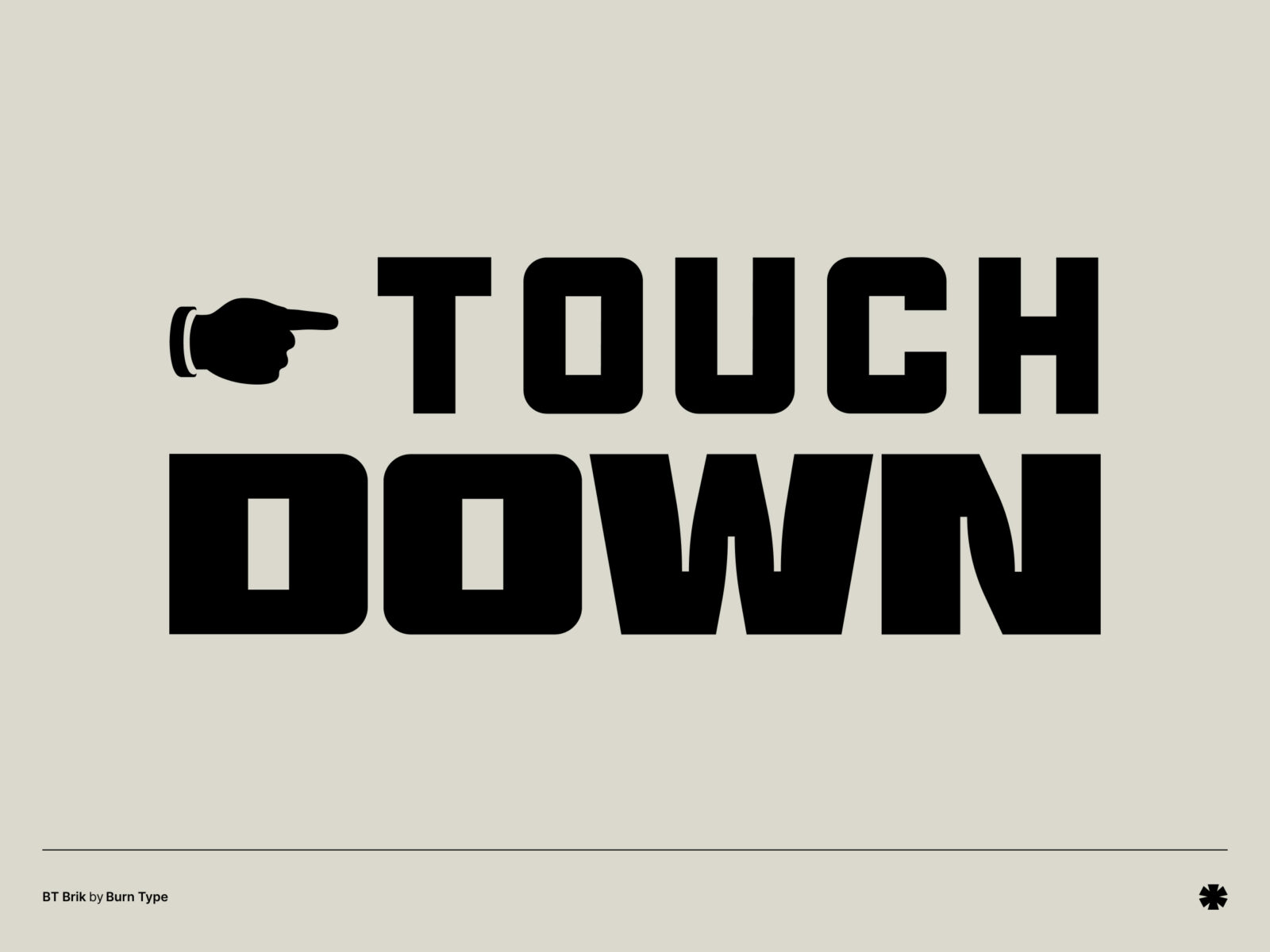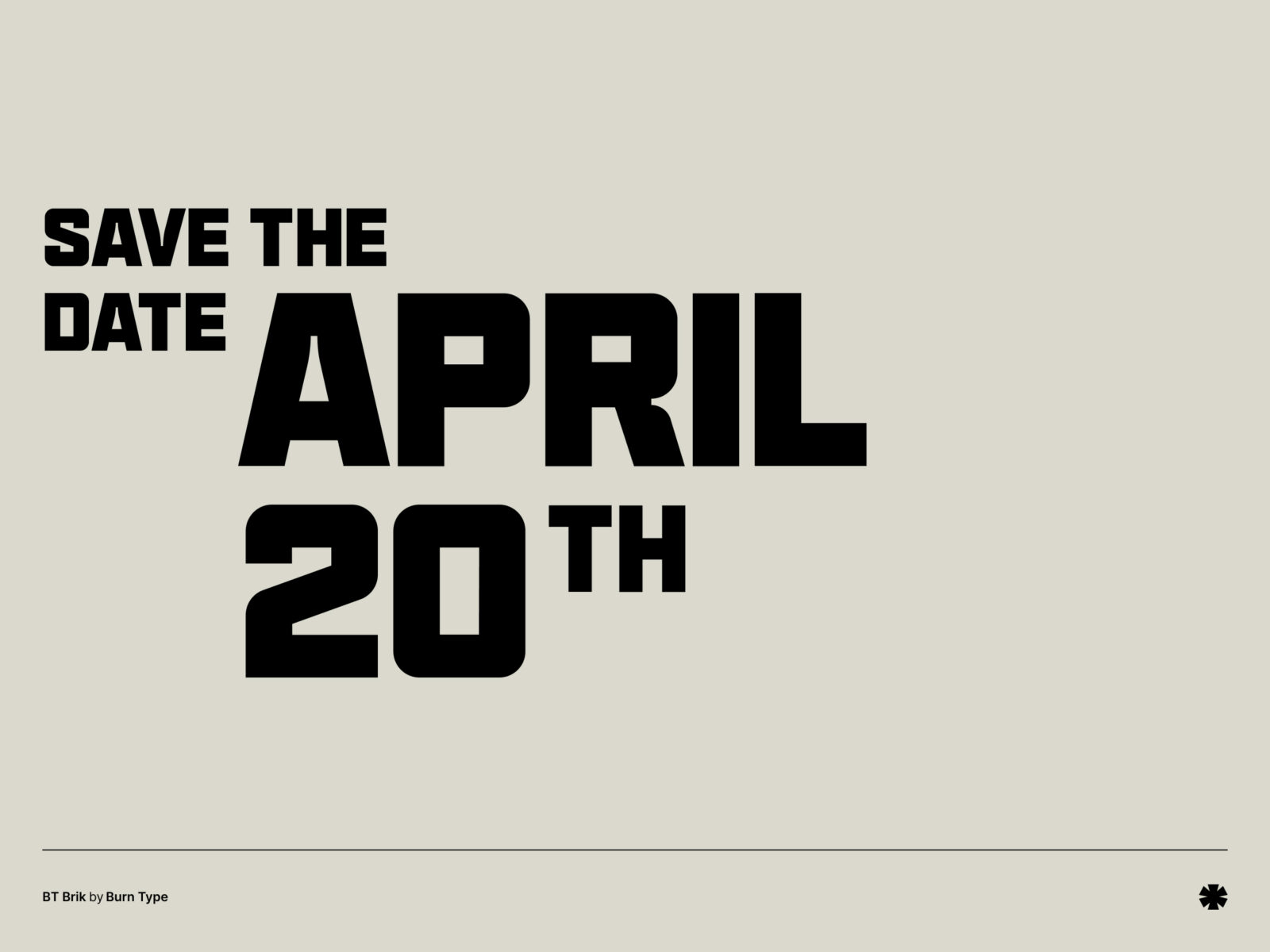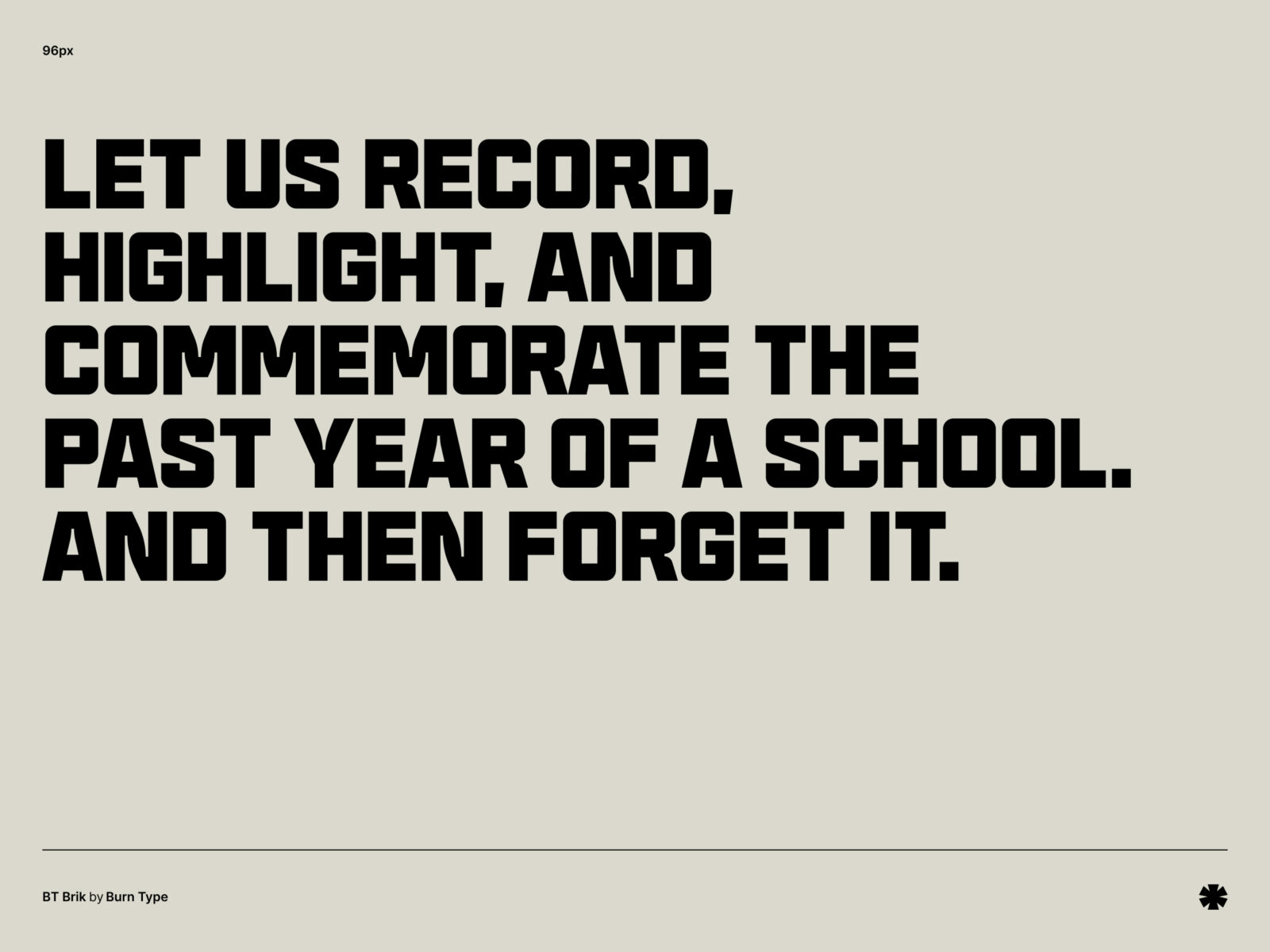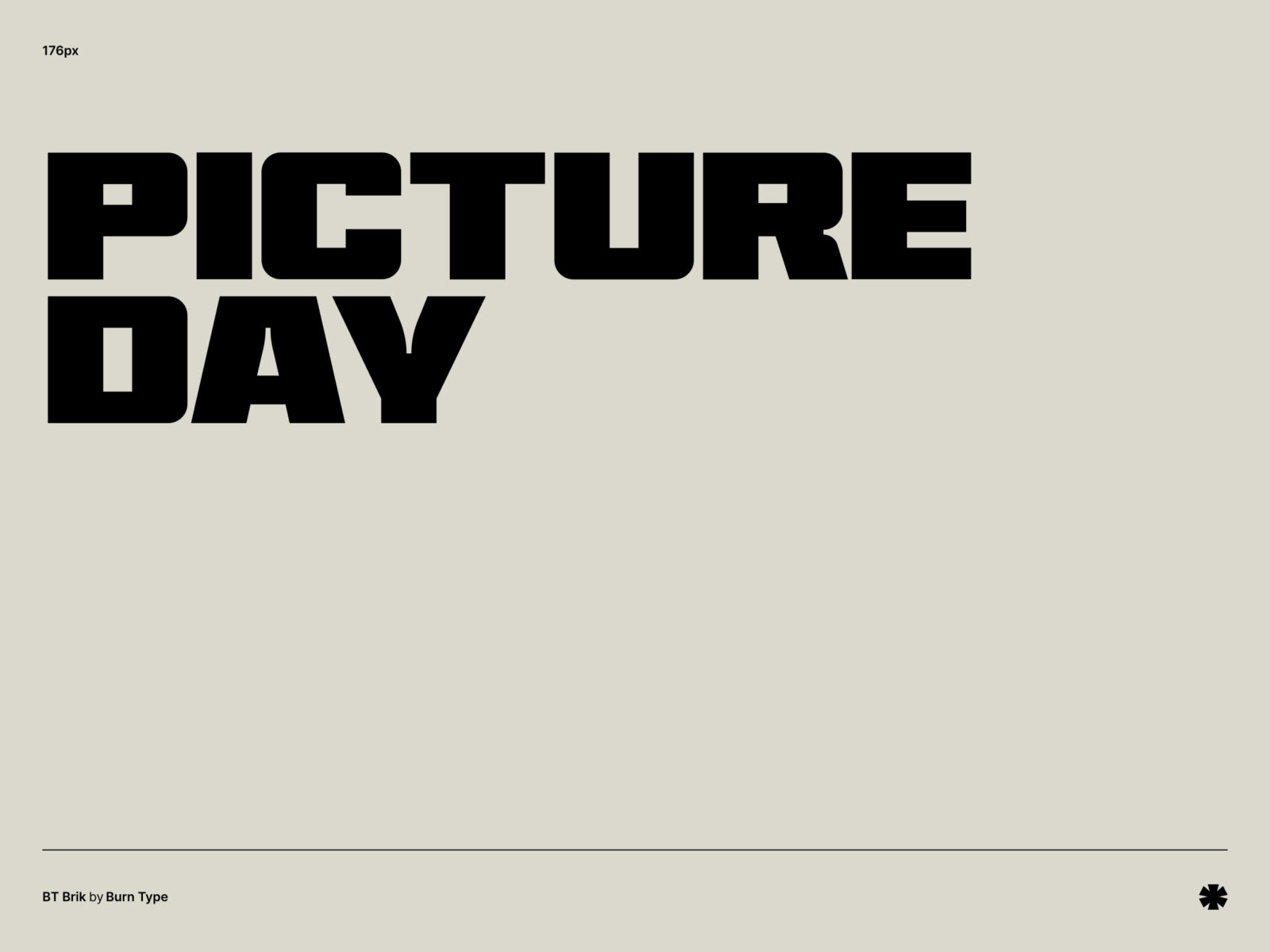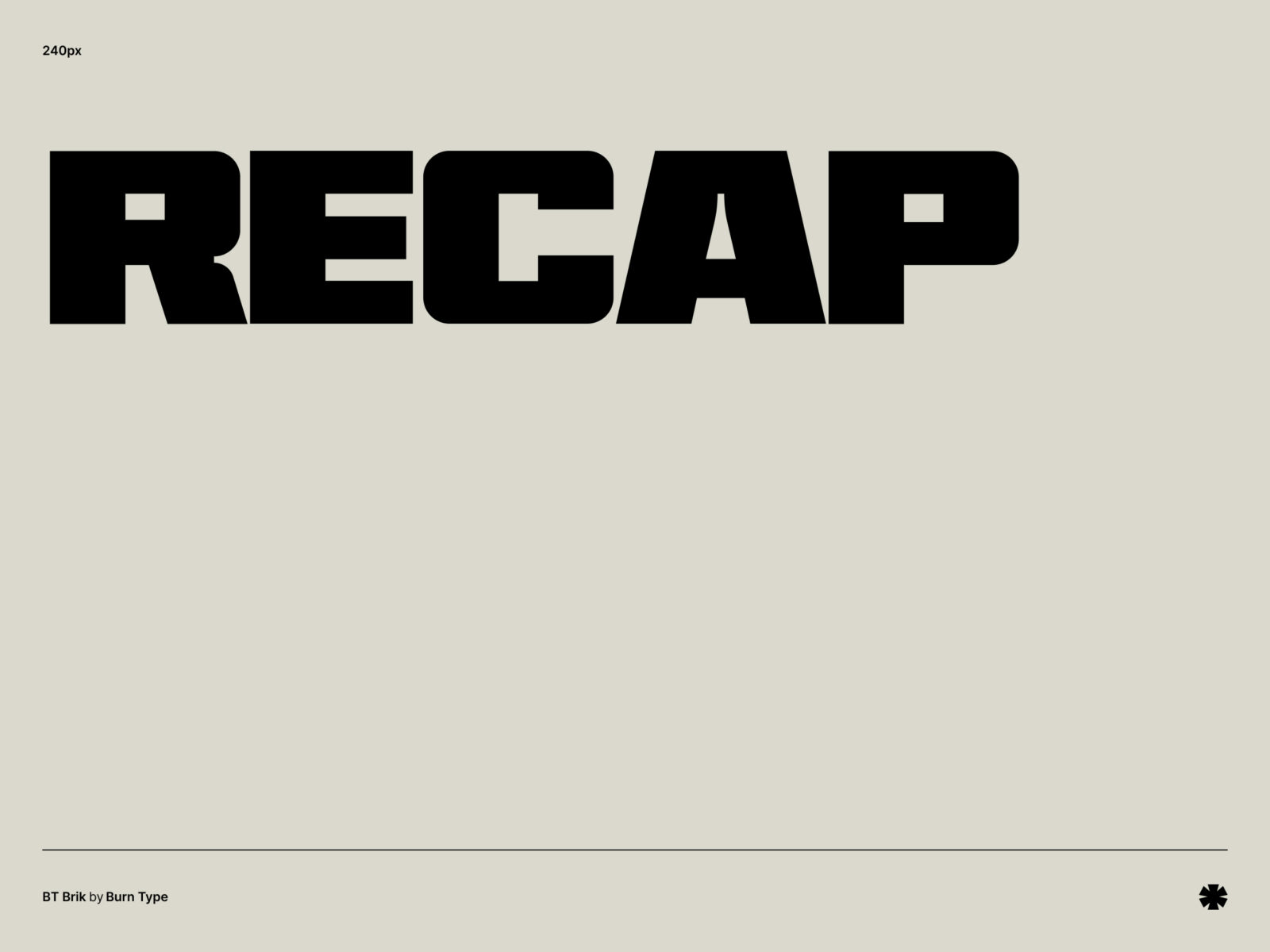
A distinct, unapologetic display typeface. Brik is available in five weights across regular, condensed, and oblique sub-families. Kinky ink traps, chunky corners – this one definitely stands out from the crowd.